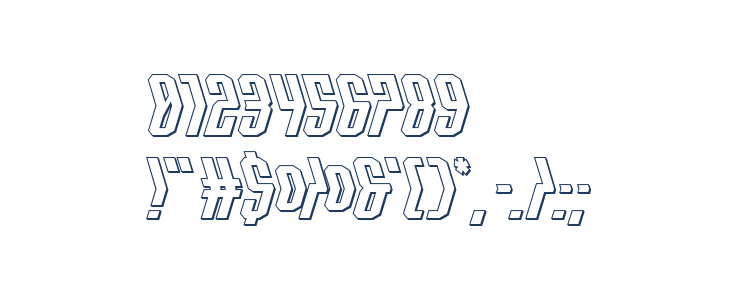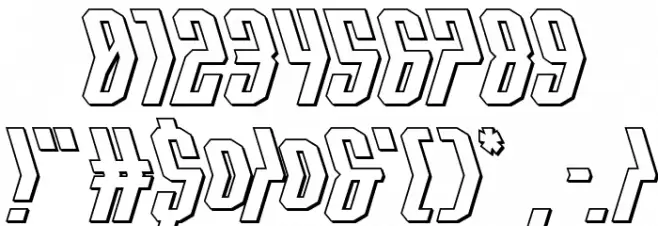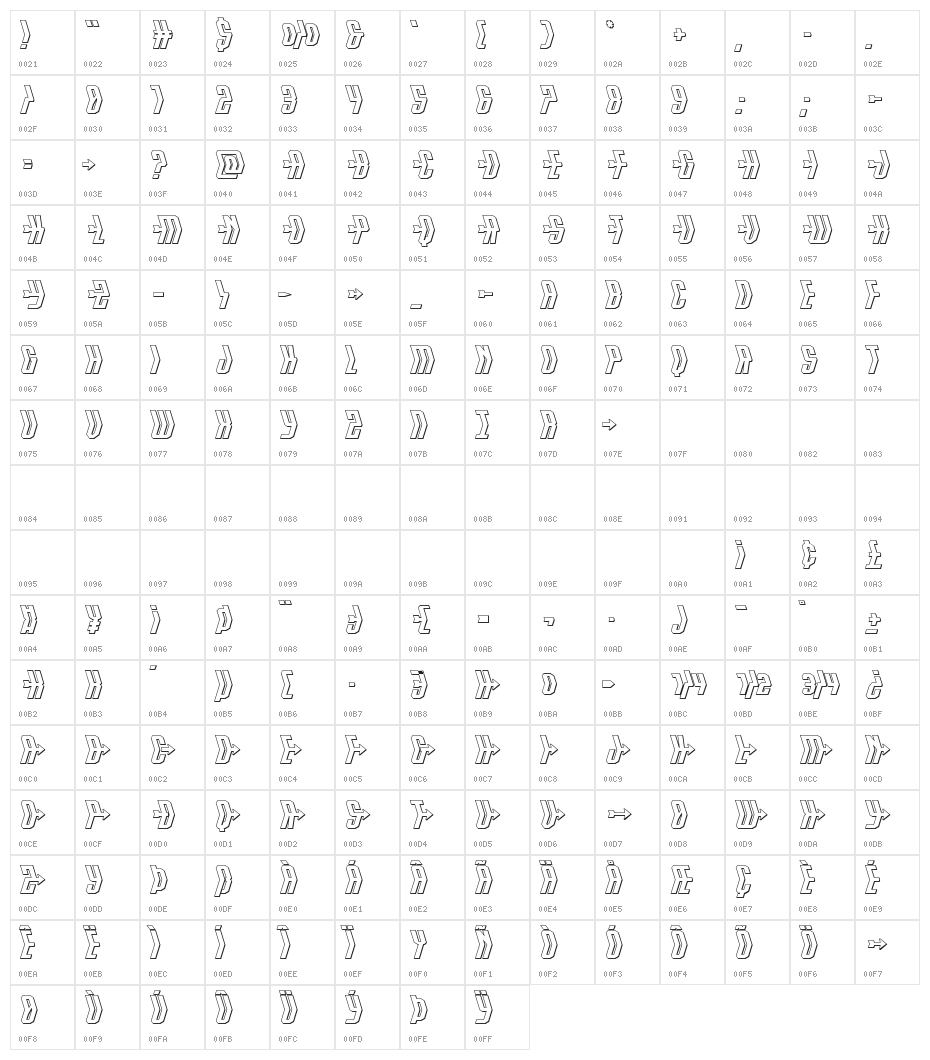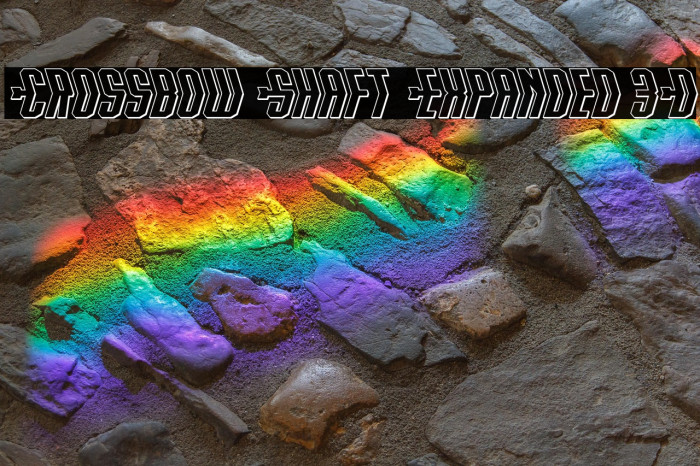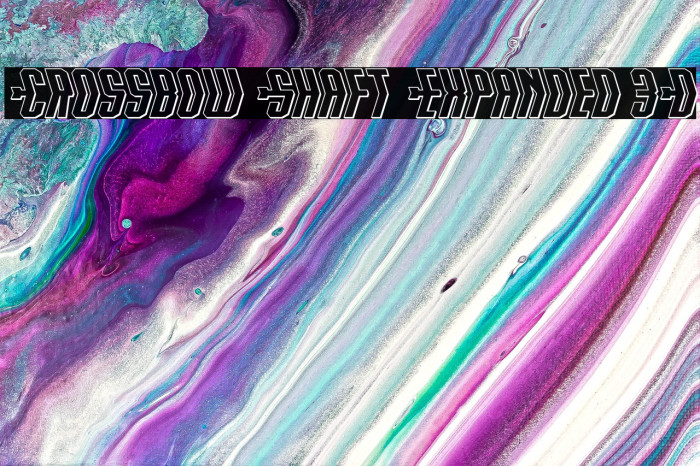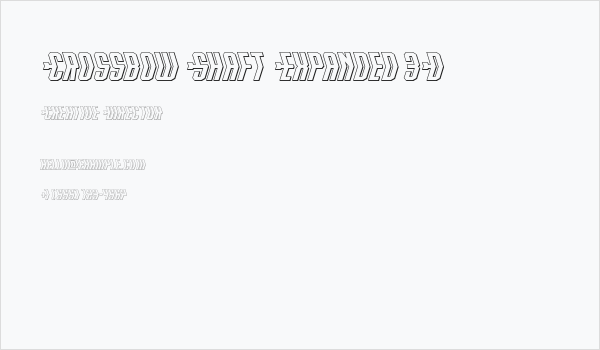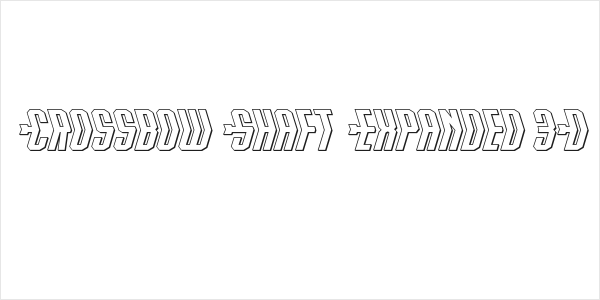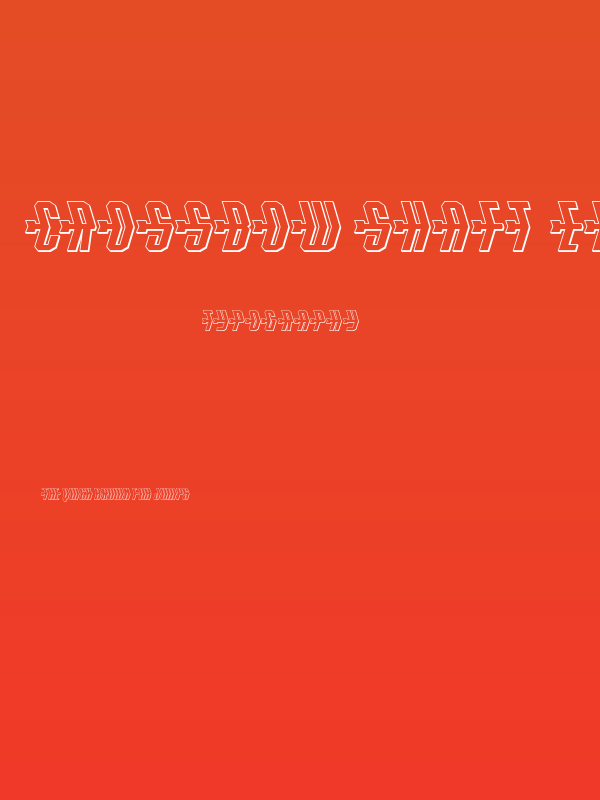
Crossbow Shaft Expanded 3D Font
Crossbow Shaft Expanded 3D Description
This font features a bold, three-dimensional design with a distinct expanded style. Each character is outlined, creating a shadow effect that gives the impression of depth and solidity. The geometric shapes are angular and sharp, contributing to a futuristic and dynamic appearance. The uppercase letters are particularly striking, with a consistent width that enhances the font's uniformity. The numbers and special characters maintain the same bold and expansive style, ensuring a cohesive look across all elements. This font is ideal for projects that require a strong visual impact and a modern aesthetic.
| Proposed Projects | Ideal for video game titles, movie posters, and branding that requires a modern, impactful look. |